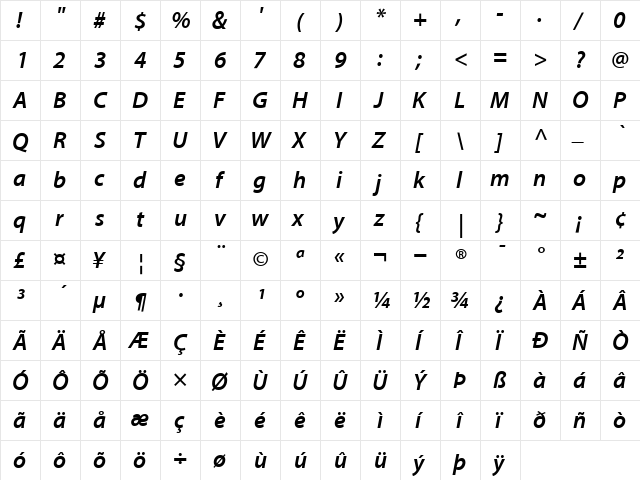
AdobeCorporateIDMyriad-SemiBold Semi BoldItalic Font Preview
AdobeCorporateIDMyriad-SemiBold Semi BoldItalic
Design Context for AdobeCorporateIDMyriad-SemiBold Typeface
AdobeCorporateIDMyriad-SemiBold offers clean, dependable letterforms without strong stylistic allegiance, making it a practical choice for designers who need flexibility. The slanted form adds forward momentum and visual energy. Its bold stroke weight gives it real presence on the page.
Pro Tip: Use AdobeCorporateIDMyriad-SemiBold for emphasis, pull quotes, and subheadings where its slanted energy can add rhythm to the layout.